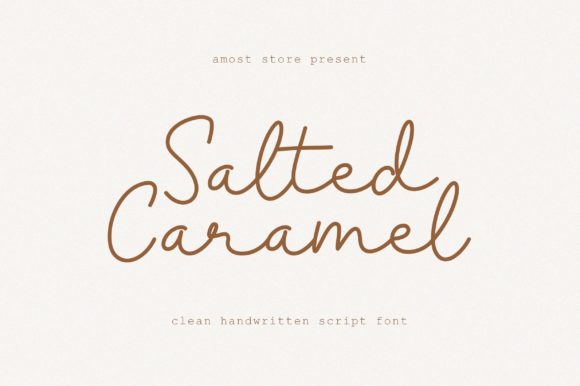
Indulge in the sweet and enchanting realm of Salted Caramel, the script font that weaves a tapestry of elegance and allure. Its slender letters dance across your designs, leaving a trail of undeniable charm and a hint of playful indulgence.
Unleash the captivating power of handwritten beauty, where every stroke whispers a story and invites you to explore a world of imagination. With Salted Caramel, your designs will transcend the ordinary, captivating hearts and minds with its timeless appeal.
Created by the masterminds at AMost Store, this font embodies the essence of sophistication and style. Its delicate lines flow seamlessly, creating a visual symphony that will elevate any project to new heights of creativity.
Whether you're crafting invitations that evoke a sense of heartfelt connection, designing logos that exude professional poise, or creating social media content that captivates and inspires, Salted Caramel is the perfect choice. Its versatility knows no bounds, allowing you to express your unique style with an artistry that is both enduring and magical.
Immerse yourself in the world of Salted Caramel, where every letter becomes a sweet whisper of inspiration, guiding you towards designs that are both visually stunning and emotionally resonant. Let this font be the touch of enchantment that transforms your designs into masterpieces that leave a lasting impression.